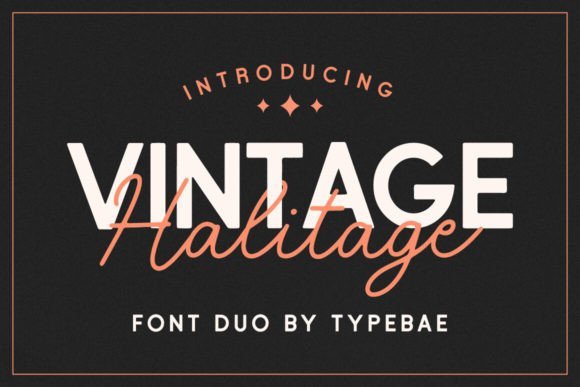
Introduction to Halitage Duo Font
Halitage is a vintage duo font that combines a script with a sans-serif font.
Together or apart, these offer a harmonious blend of vintage and contemporary aesthetics, making them suitable for various creative applications such as branding, logos, invitations, and more .
Key Features of Halitage Duo Font